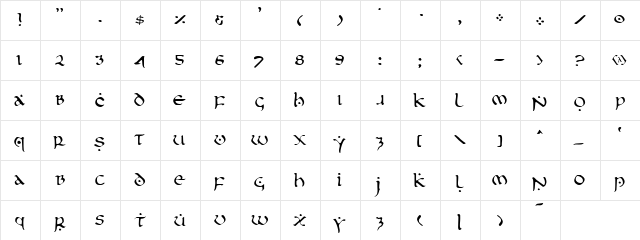
First Order Light Light
Design Context for First Order Light Typeface
First Order Light is a composed and adaptable typeface that performs quietly and consistently across a wide range of design contexts. Its slender proportions lend an understated elegance to any composition.